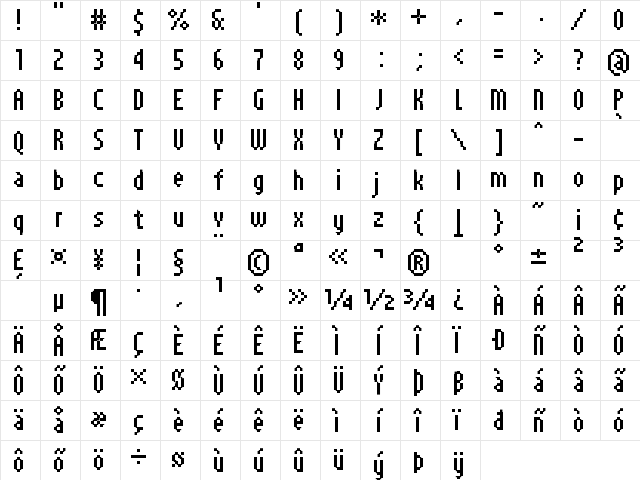
Complete PF Tempesta Seven Compressed Regular glyph index. Displaying only characters natively supported by PF Tempesta Seven Compressed Regular font.
PF Tempesta Seven Compressed is a composed and adaptable typeface that performs quietly and consistently across a wide range of design contexts.